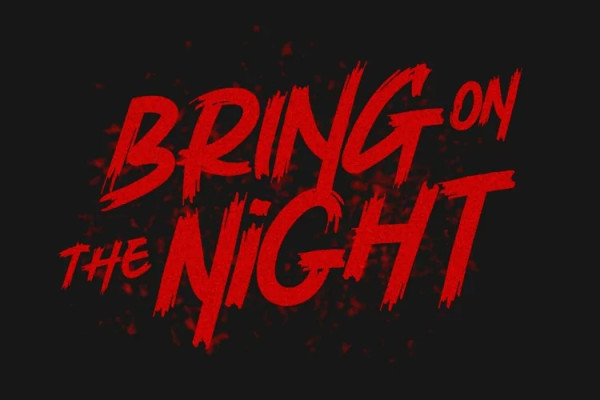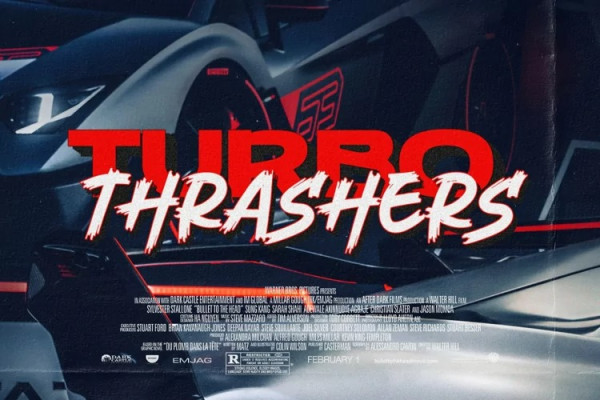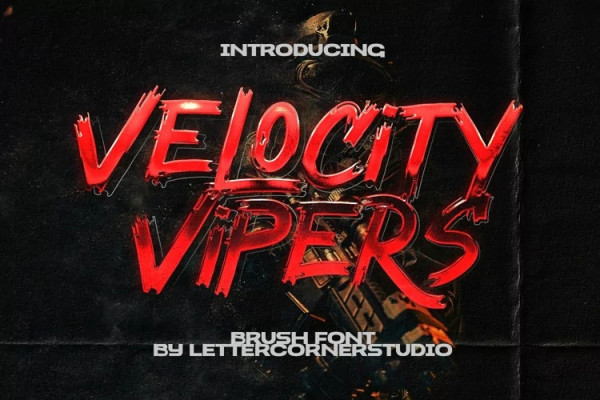
Velocity Vipers Font
Velocity Vipers Font is a handwriting brush effect and sans that comes with a style that seems real. This font style inspired by urban style and branded makes in many ways for your latest project. Velocity Vipers is perfect for logos & branding, photography, invitations, watermarks, advertisements, product designs, stationery, wedding designs, labels, product packaging, special events or anything that requires handwritten content.